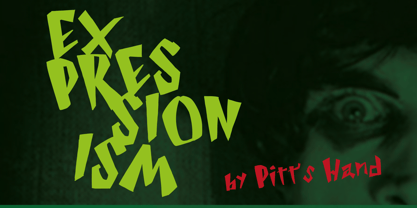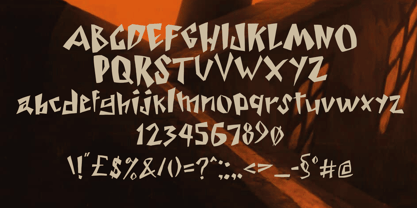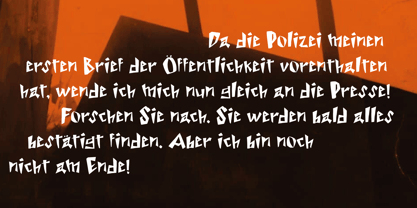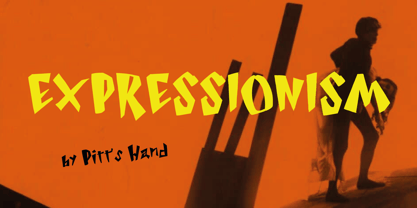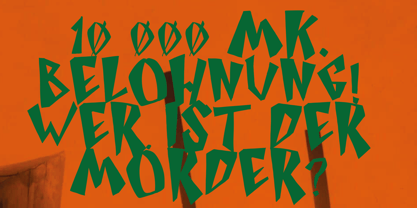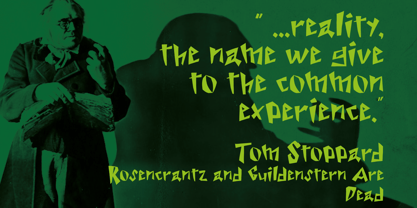
Expressionista
by Pitt's Hand
The Expressionista Font Family was designed by Pietro Rotelli and published by Pitt's Hand. Expressionista contains 1 styles. More about this family
EXPRESSIONISTA s a display typeface inspired by the unsettling visual language of 1920s German Expressionism. Its letterforms appear carved from sharp shadows, impossible perspectives, and distorted architecture, echoing the haunting atmosphere of the classic film The Cabinet of Dr. Caligari.
Each glyph was crafted to evoke crooked streets, hand-painted signs glowing in the darkness, and stories suspended between dreams and madness. While remaining readable at medium and large sizes, the typeface truly shines in headlines, book covers, posters, role-playing games, horror comics, theatrical productions, and projects inspired by silent cinema.
Is not a historical reproduction but a contemporary tribute to the visionary spirit of Expressionism. It offers designers, illustrators, and storytellers a powerful tool for creating mysterious, dramatic, and unforgettable visual identities.
Features
• Expressionist display style
• Single weight: Regular
• Designed for headlines and logos
• Inspired by German Expressionist cinema
• Excellent for horror, dark fantasy, comics, games, and film posters